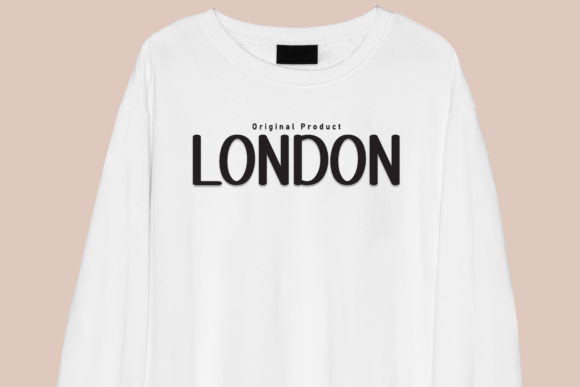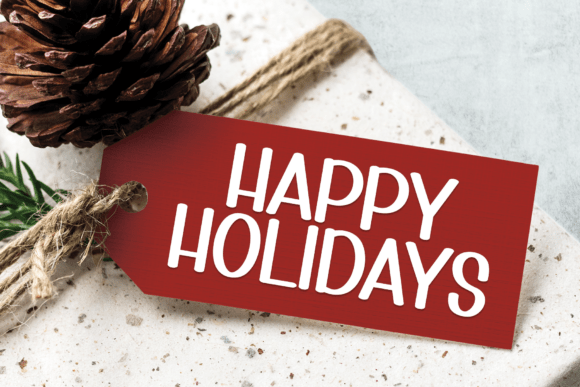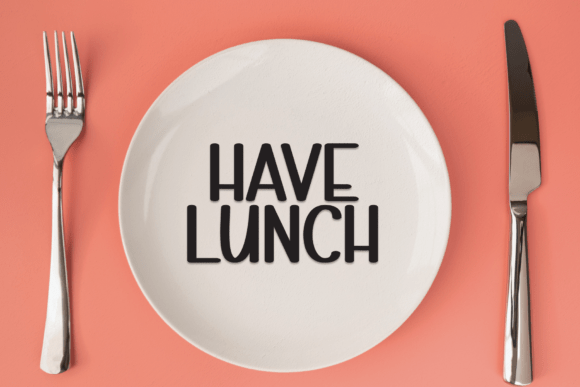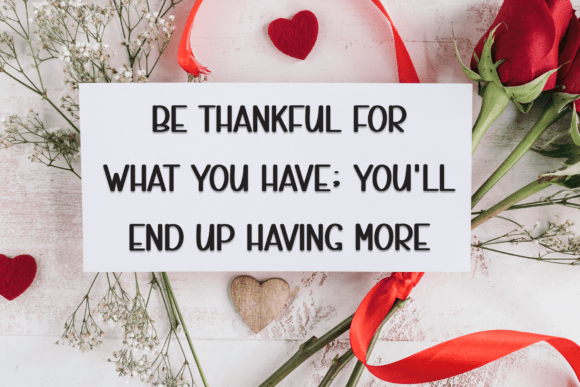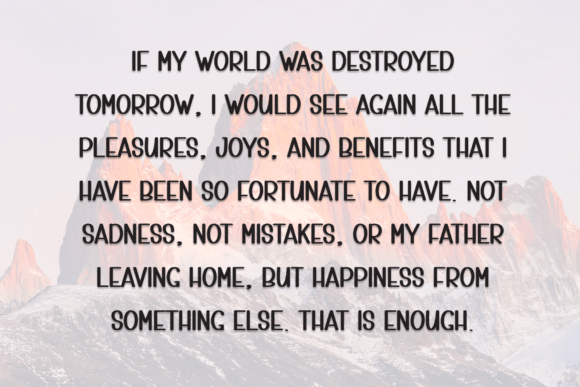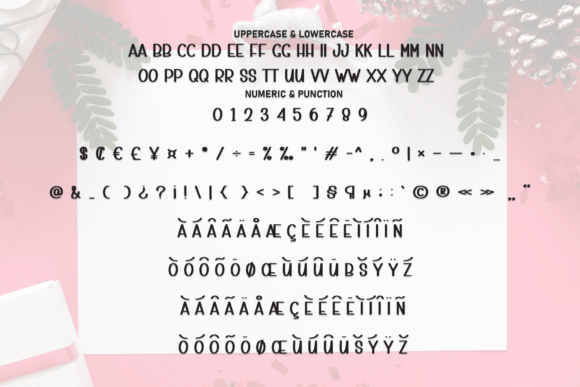
Santa Card Font – Free Download
Introduction to Santa Card Font
Discover the irresistible charm of our handcrafted display font, radiant with warmth and positivity.
Its playful undertones are perfect for crafting heartwarming wedding invitations and engaging greeting cards Breathe a whimsical touch into any design, nurturing a joy-filled aura with every stroke.
Key Features of Santa Card Font
Why Choose Santa Card Font?